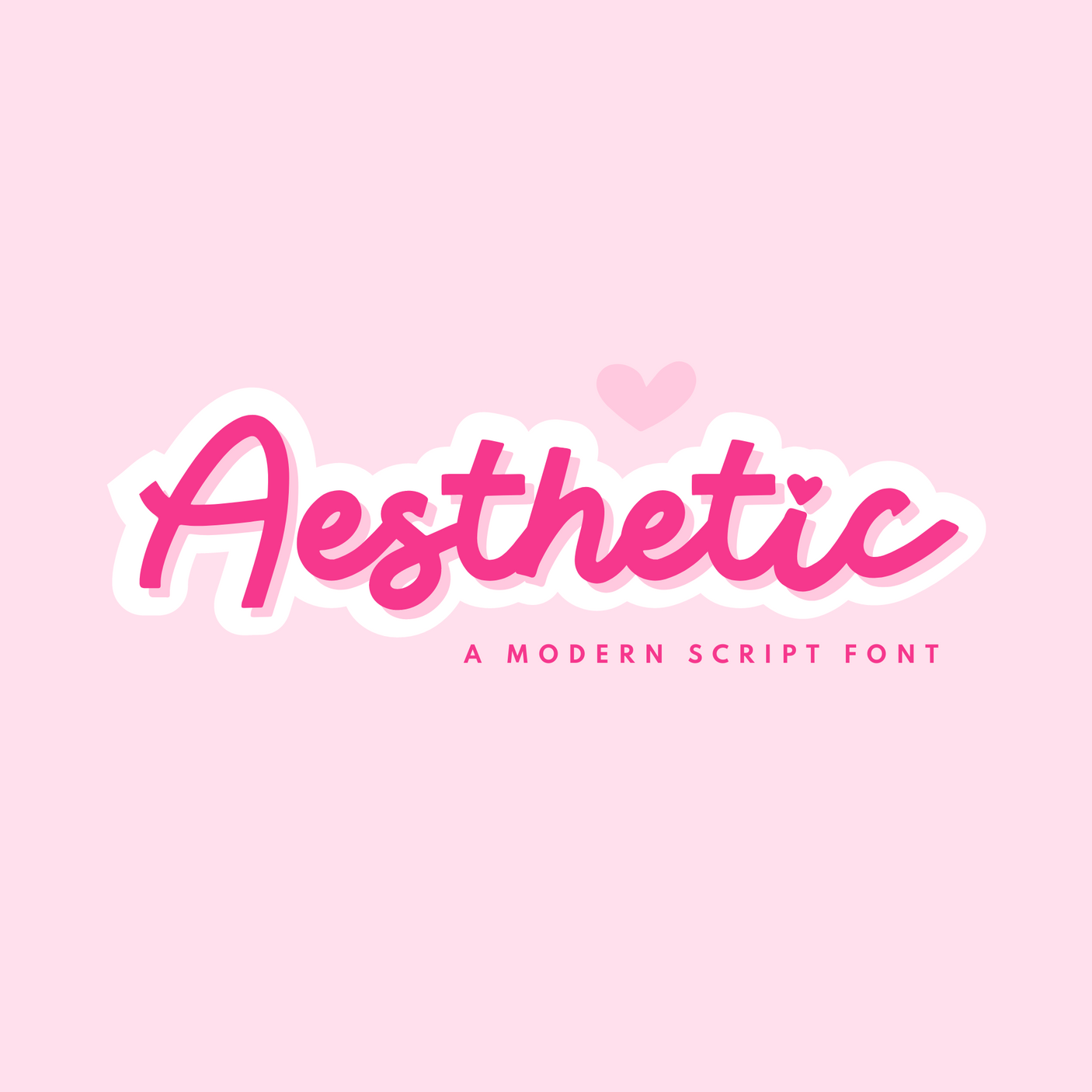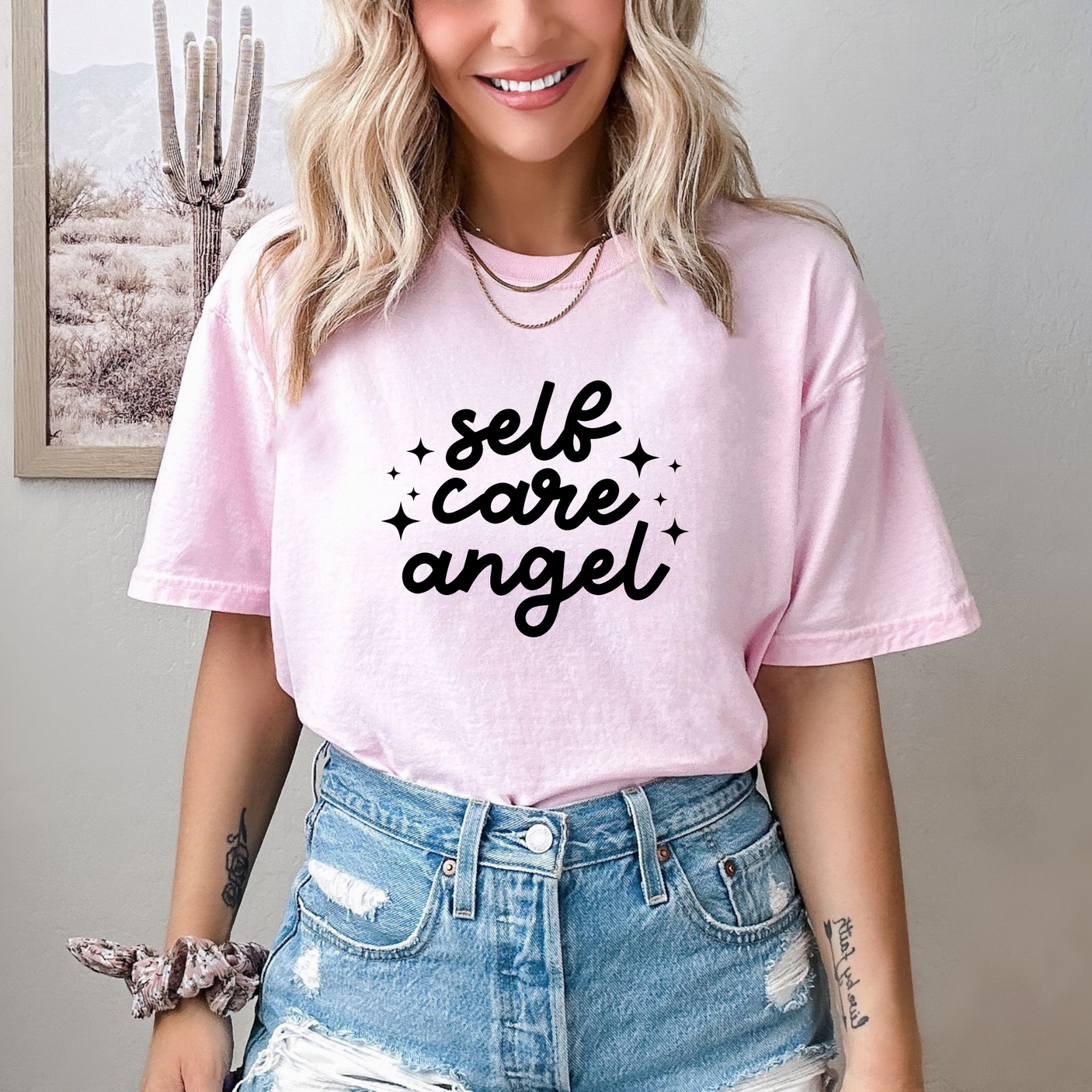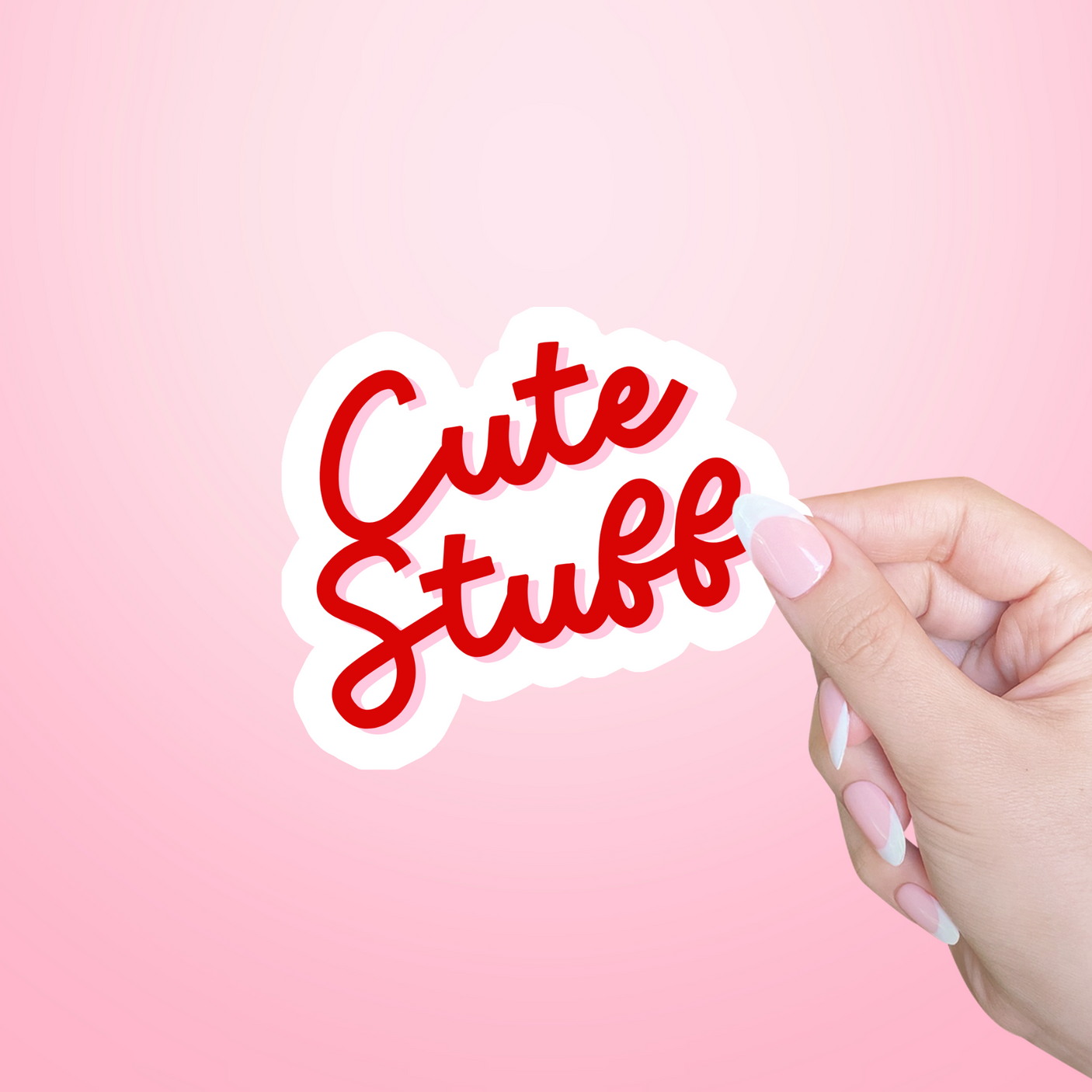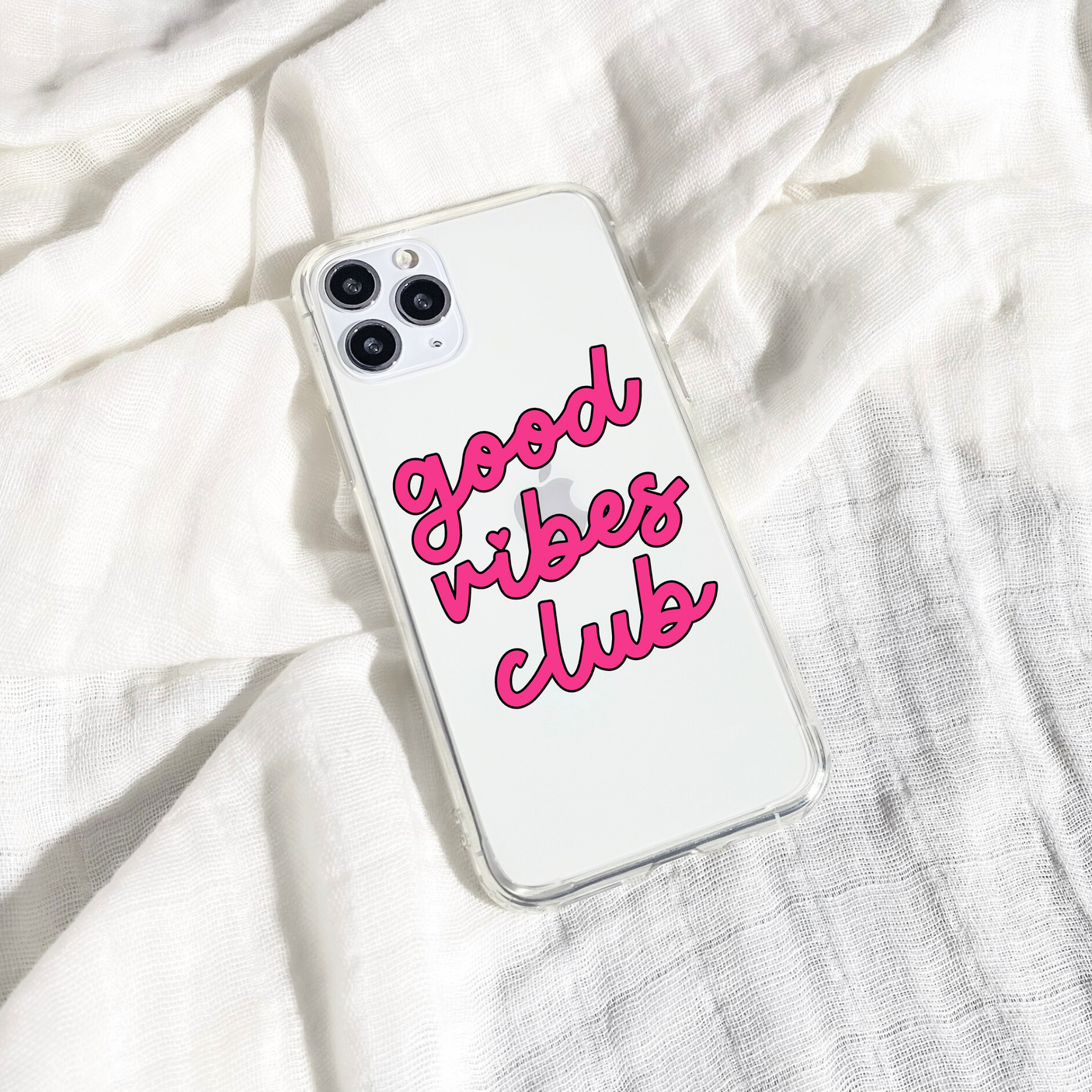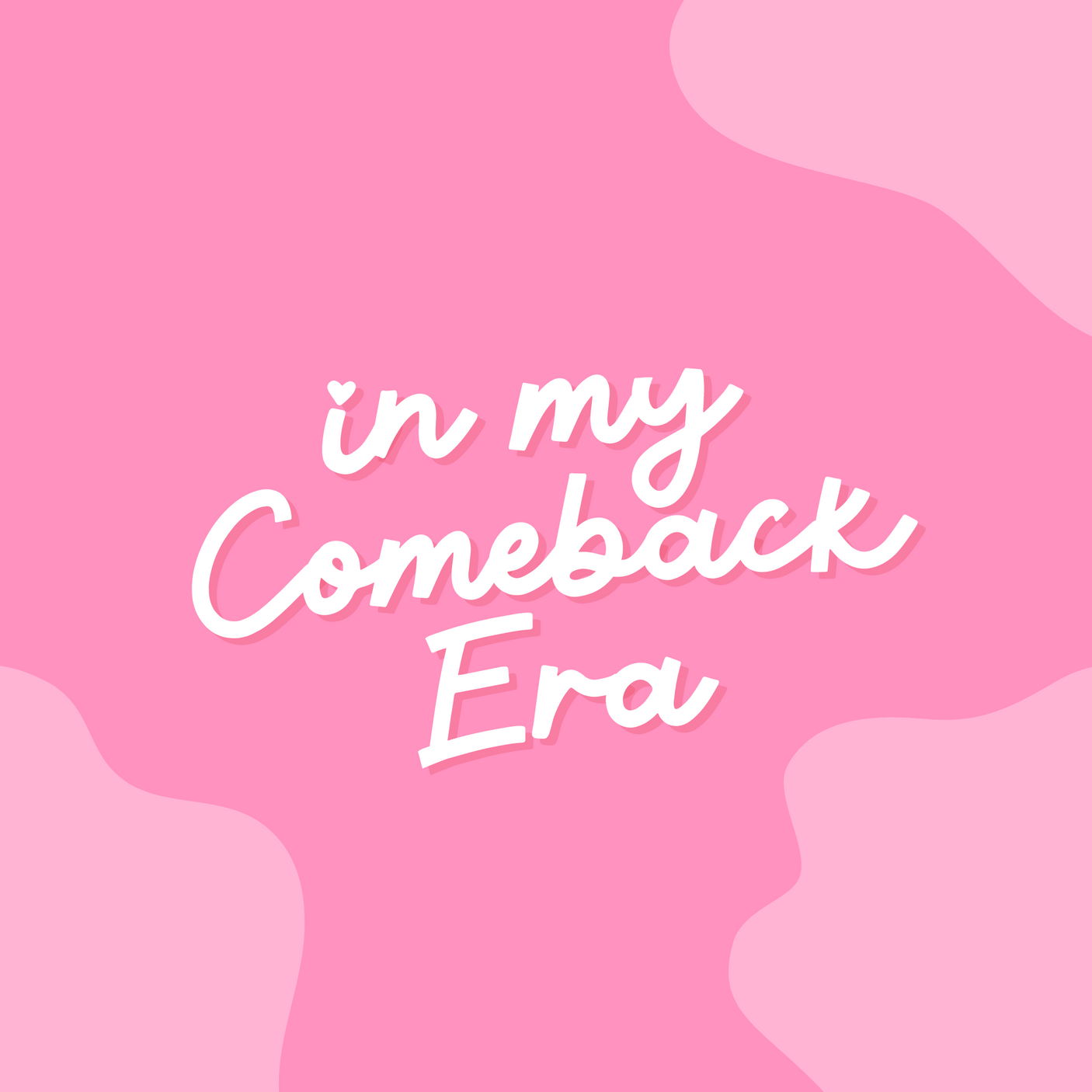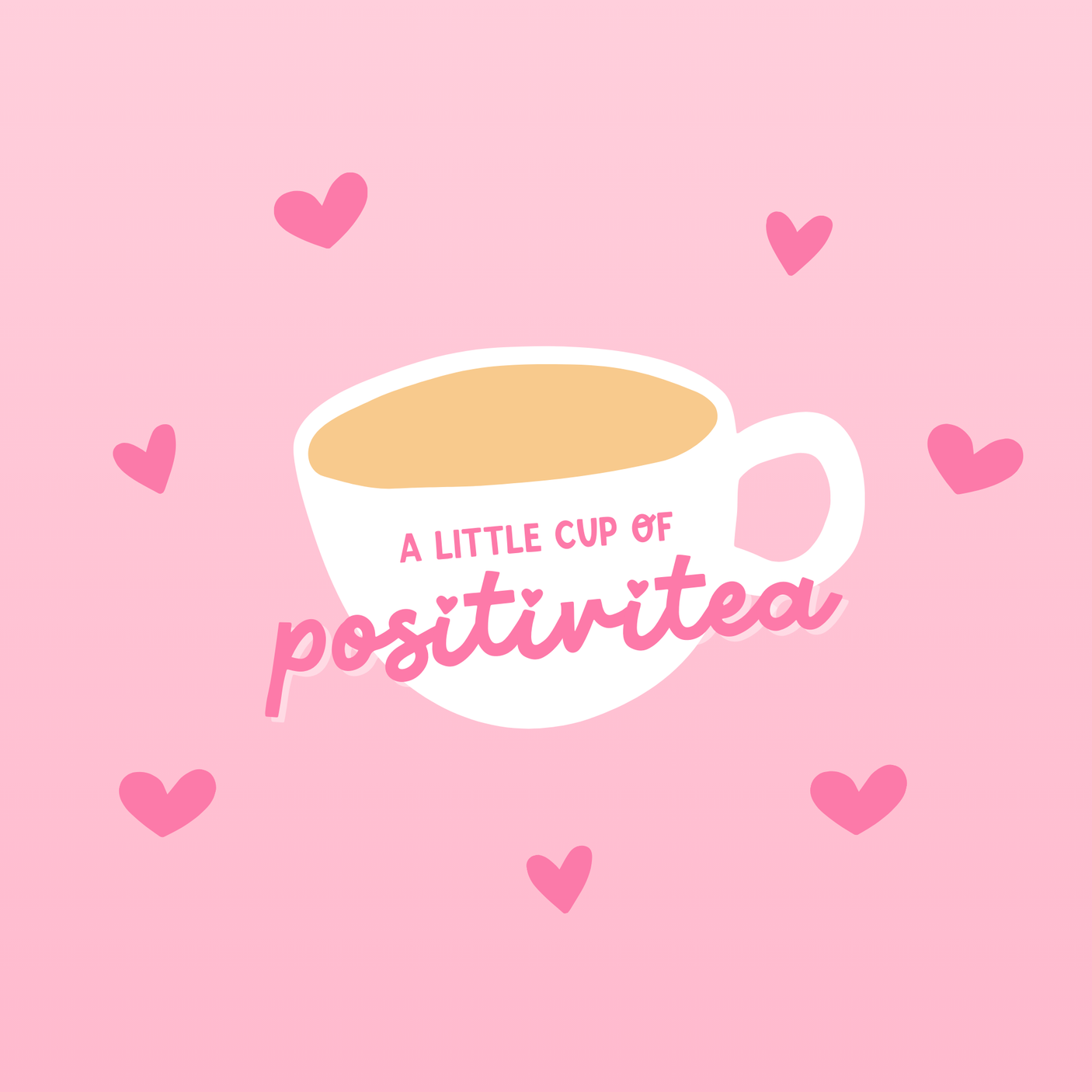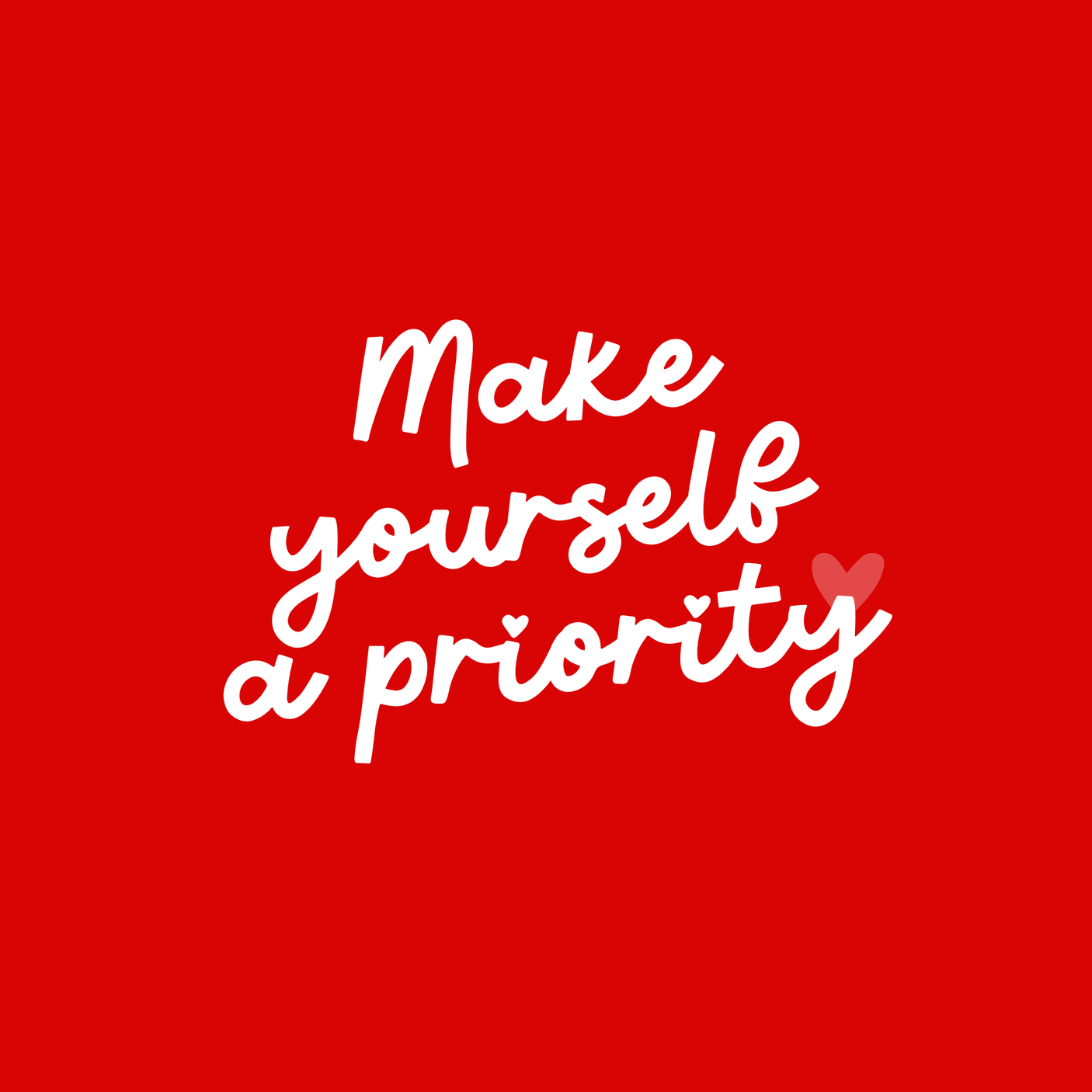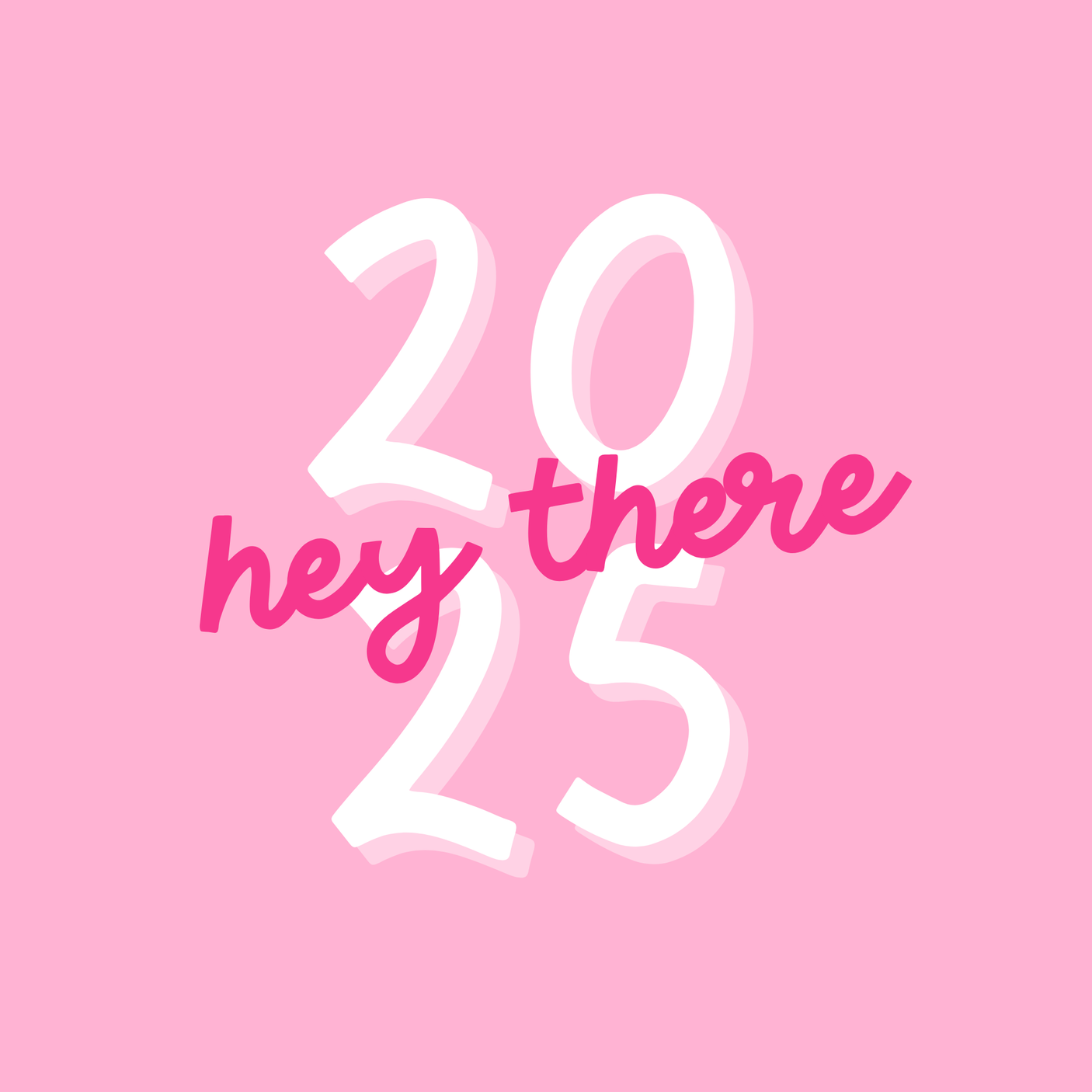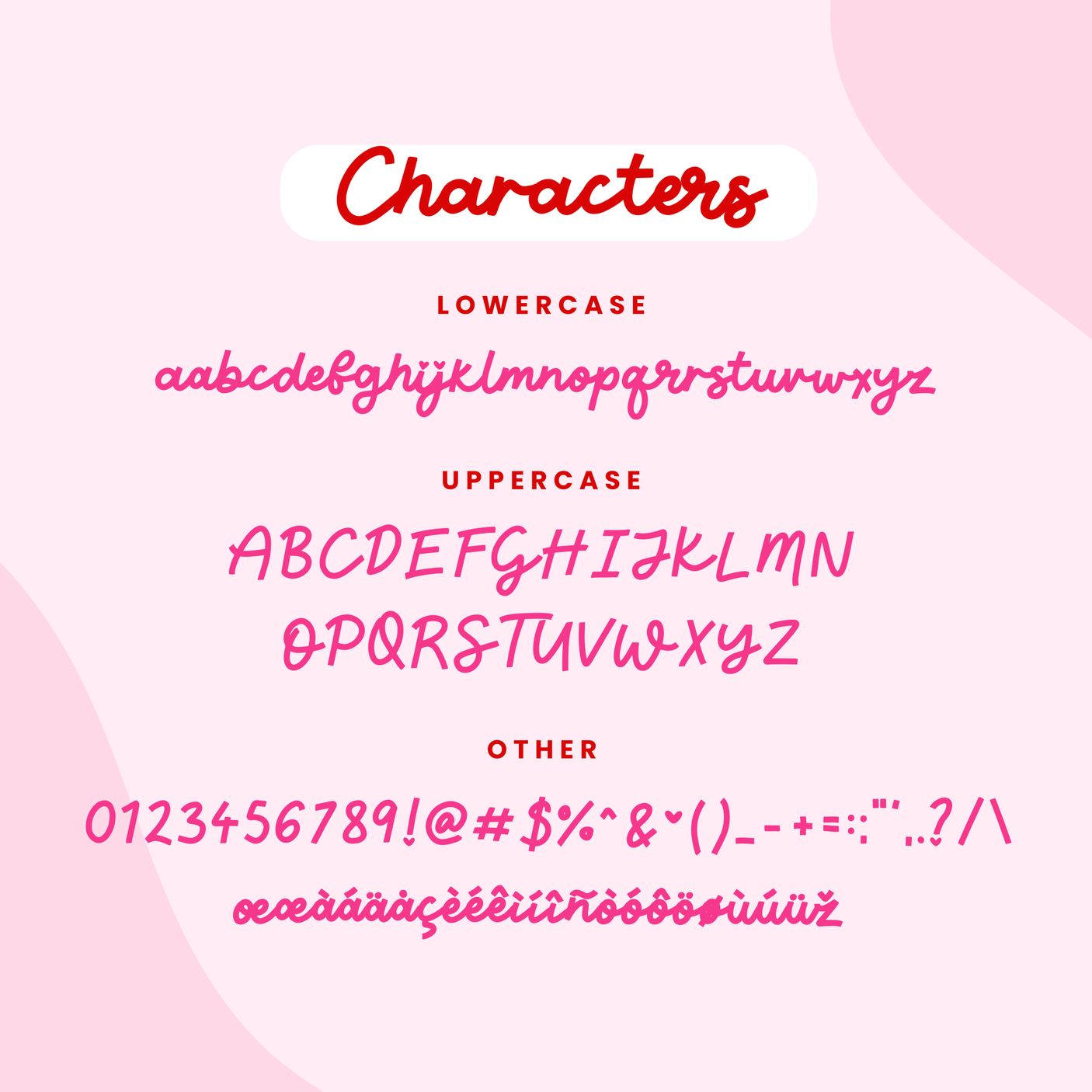
Aesthetic Font
Aesthetic font in a bold cursive design to use in Cricut, Procreate, Canva, iPad and more. This cute font with hearts will work perfectly for lettering quotes, digital designs and craft projects. It’s a modern font for apparel, stickers and sublimation. Add the Aesthetic font to your font collection and get creative.
More About The Font
Bold Monoline Style
The Aesthetic font showcases a thick monoline design that delivers a strong visual impact. Its consistent stroke width and clean, geometric shapes make it ideal for creating bold headlines, eye-catching logos, and modern digital content. The monoline structure provides clarity and uniformity, ensuring your text stands out with a contemporary edge.
Unique Heart Detail
What sets the Aesthetic font apart is the distinctive heart detail on the dot of the lowercase "i." This small yet significant touch adds a playful and affectionate element to your text. The heart accent is carefully integrated to enhance the font’s charm without disrupting its readability, making it a perfect choice for projects that need a touch of warmth and creativity.
Ideal for Invitations and Branding
The Aesthetic font is perfect for a variety of design applications where boldness and charm are needed. Use it to create memorable invitations, engaging greeting cards, or standout branding materials. The heart detail adds a personal touch, making it ideal for romantic themes, friendly messages, and any project where you want to convey a sense of affection.
Versatile and Easy to Use
Designed with versatility in mind, the Aesthetic font includes a full set of uppercase and lowercase letters, numbers, punctuation, and multilingual support. This comprehensive character set ensures that you have the tools needed for a wide range of design projects. Whether you're working on web design, print materials, or social media content, Aesthetic adapts effortlessly to your needs.
Enhance Your Designs with Aesthetic